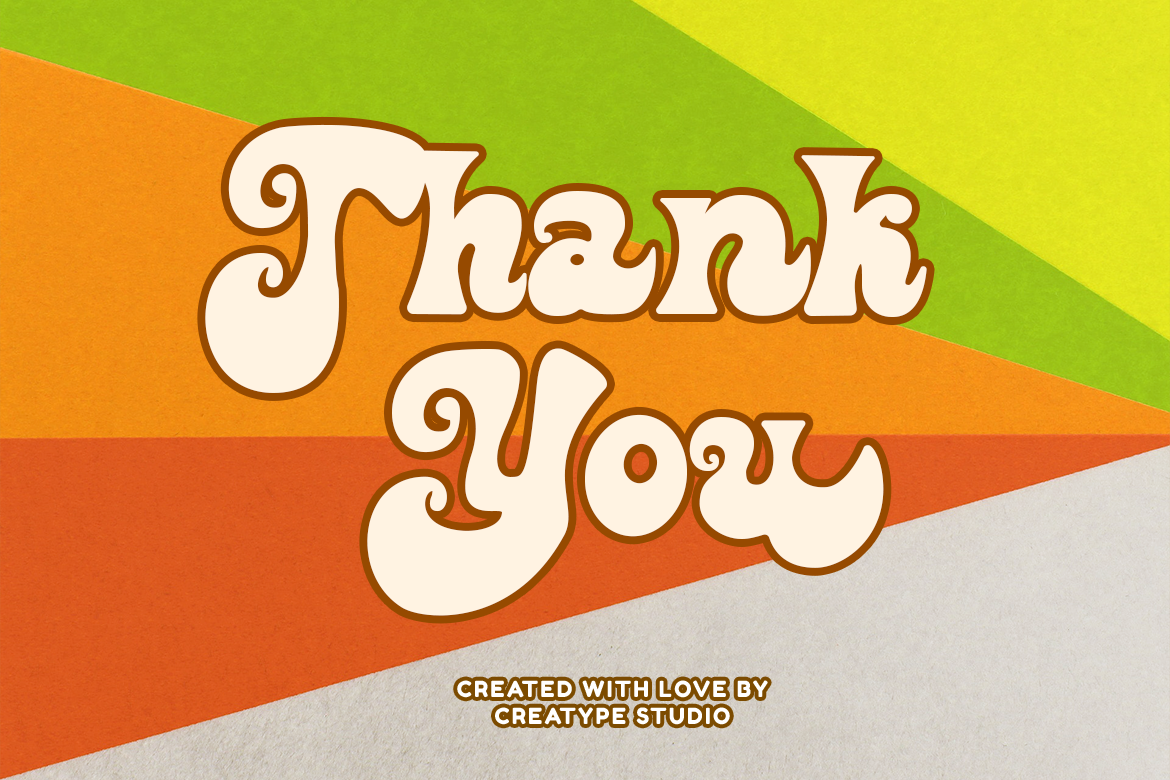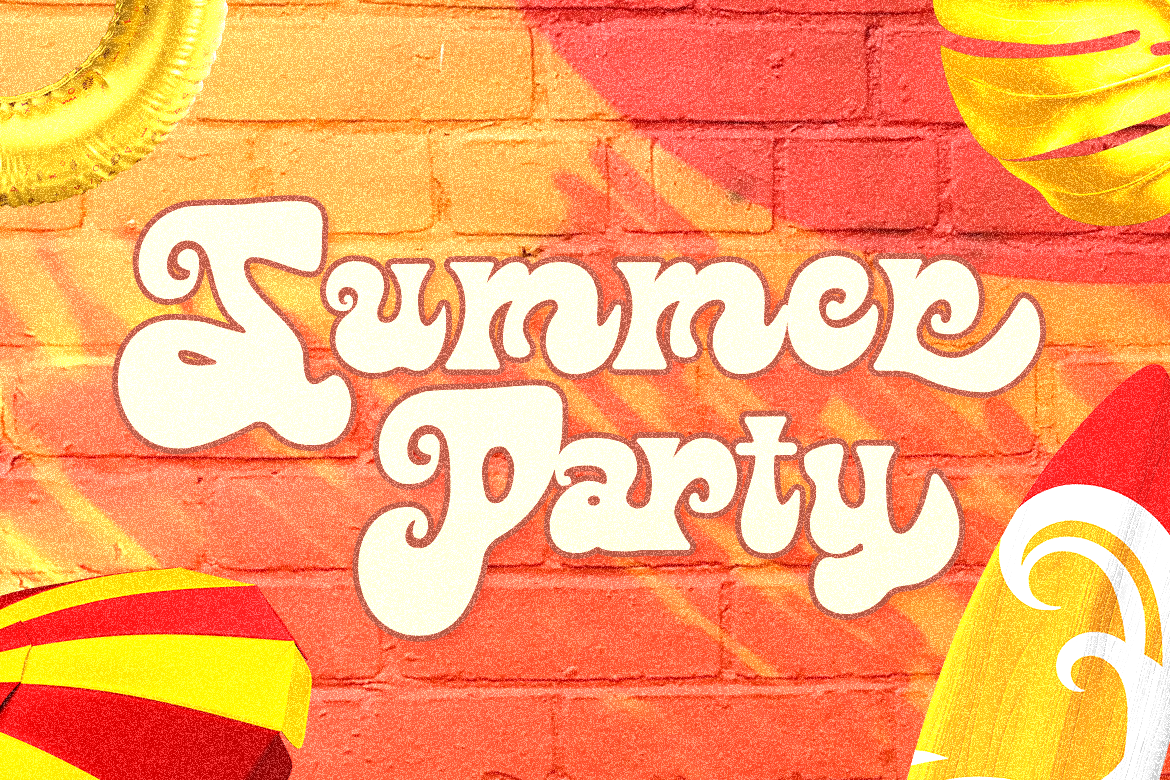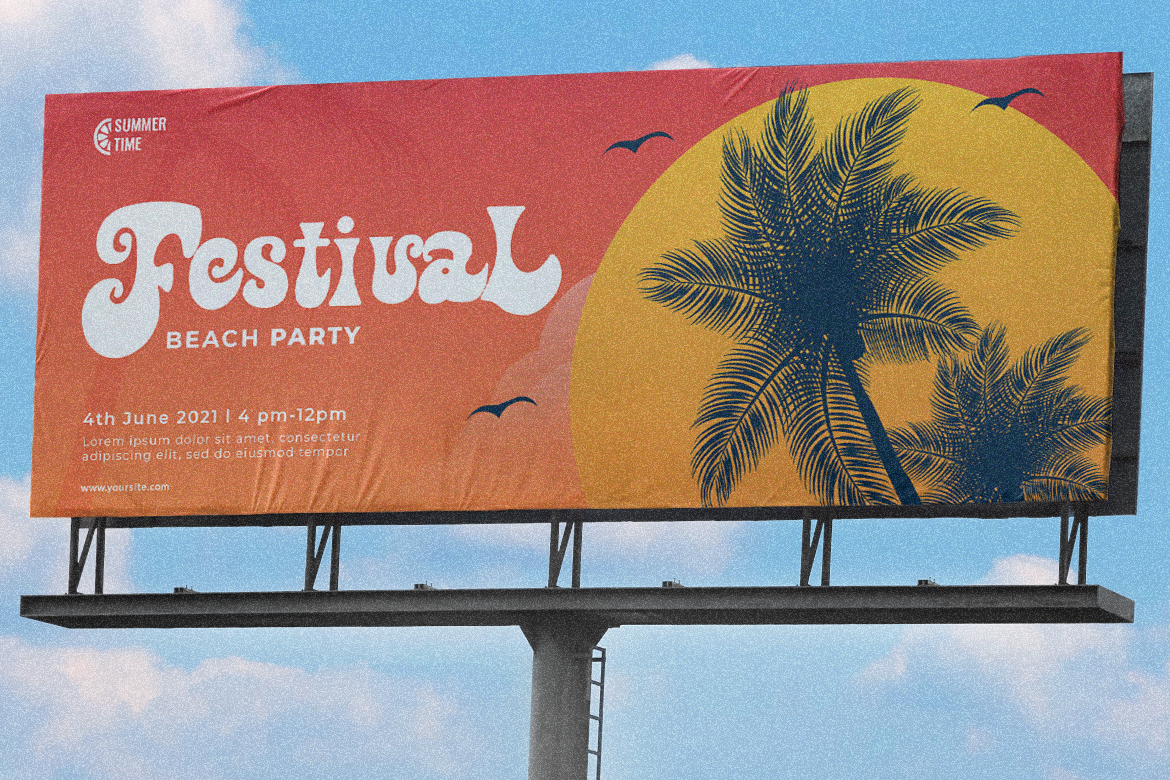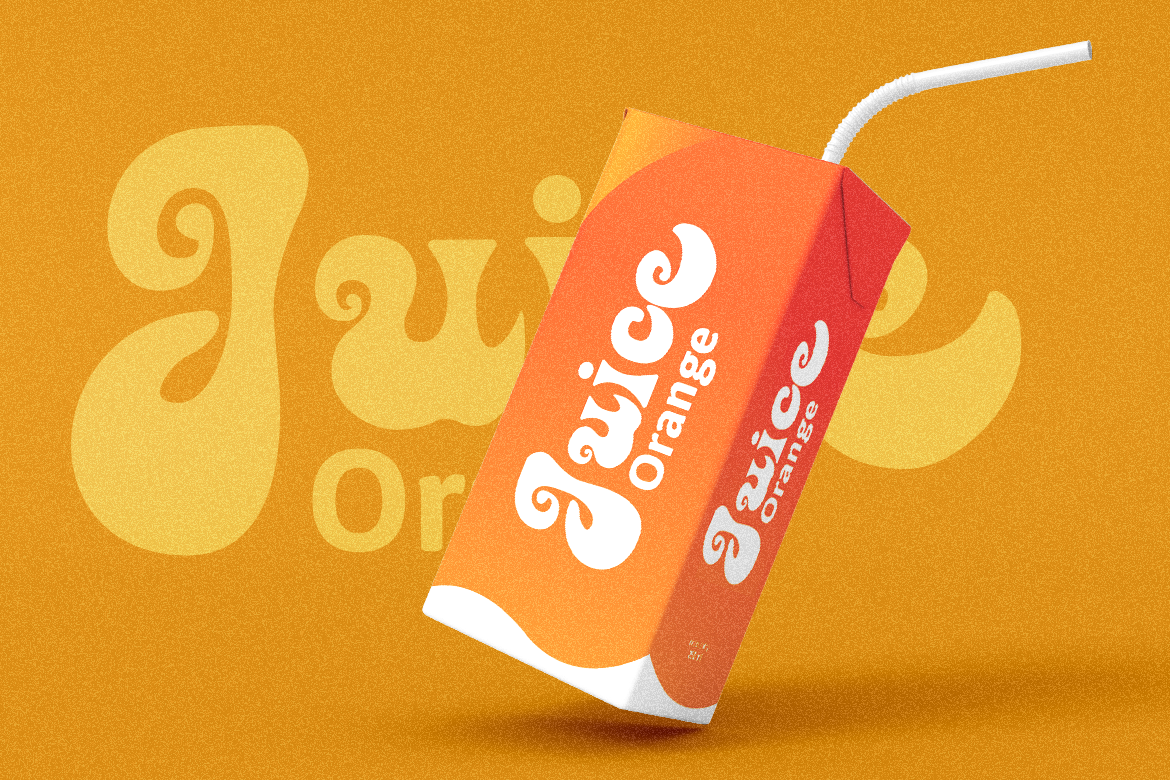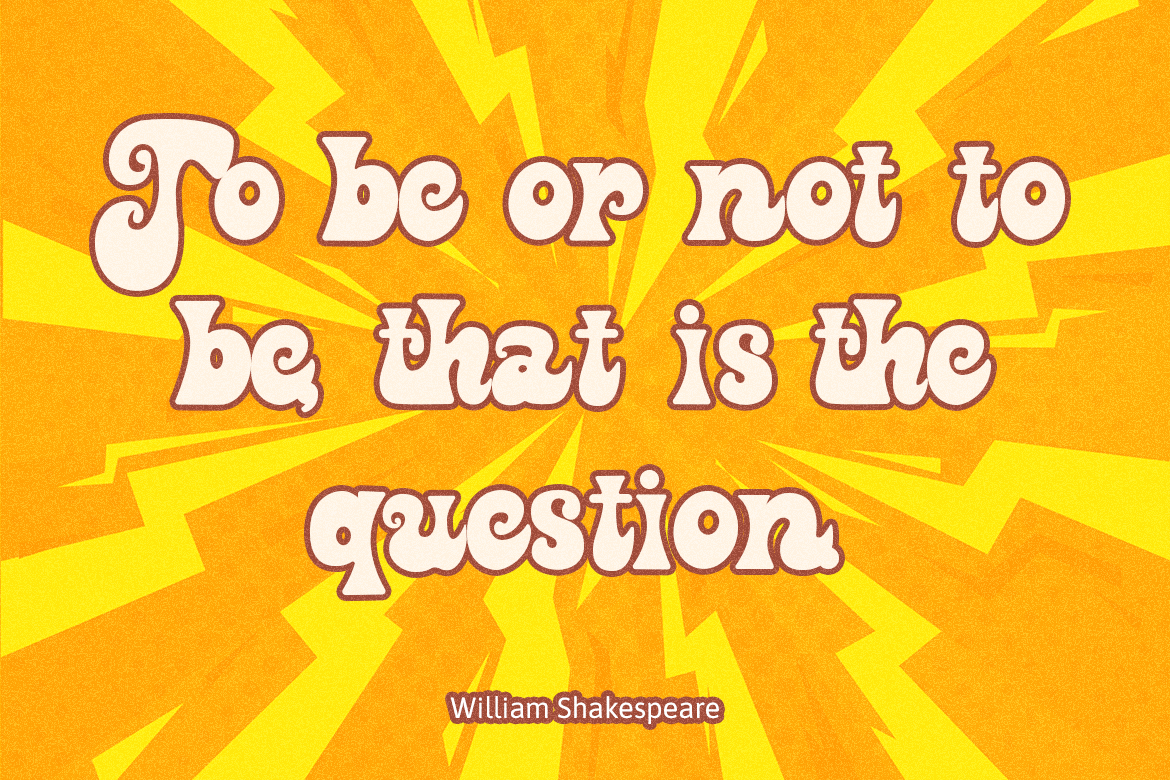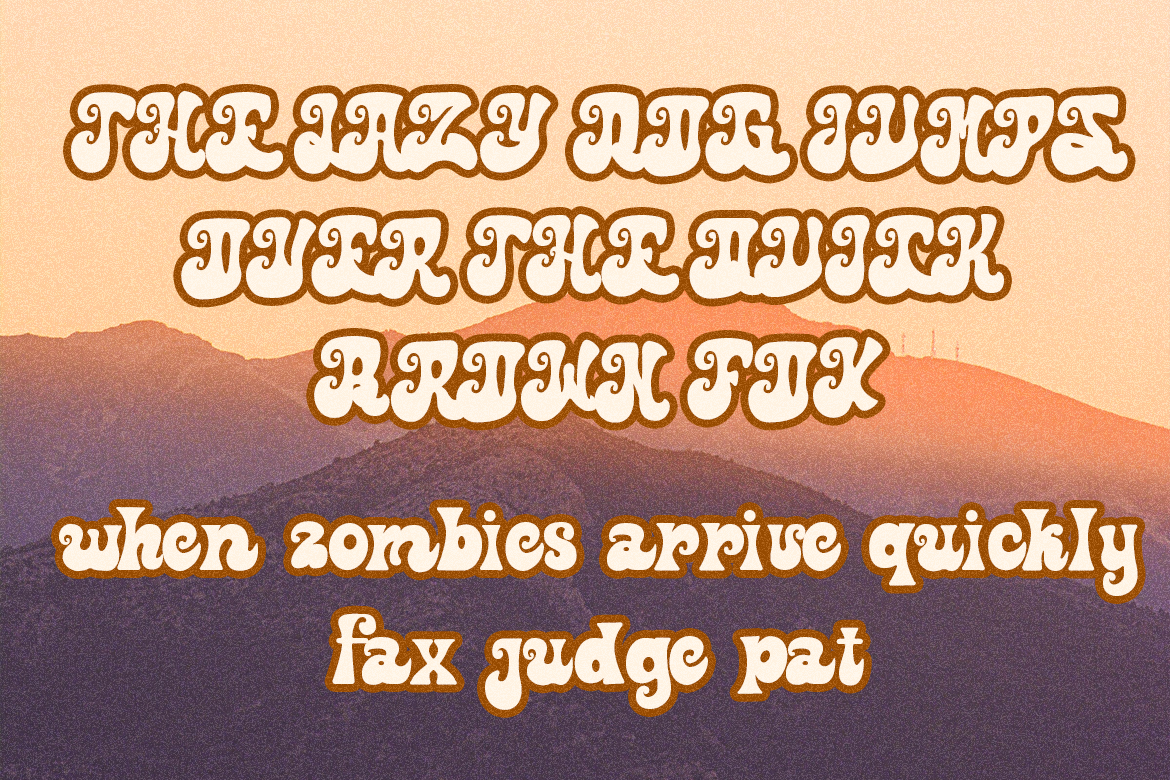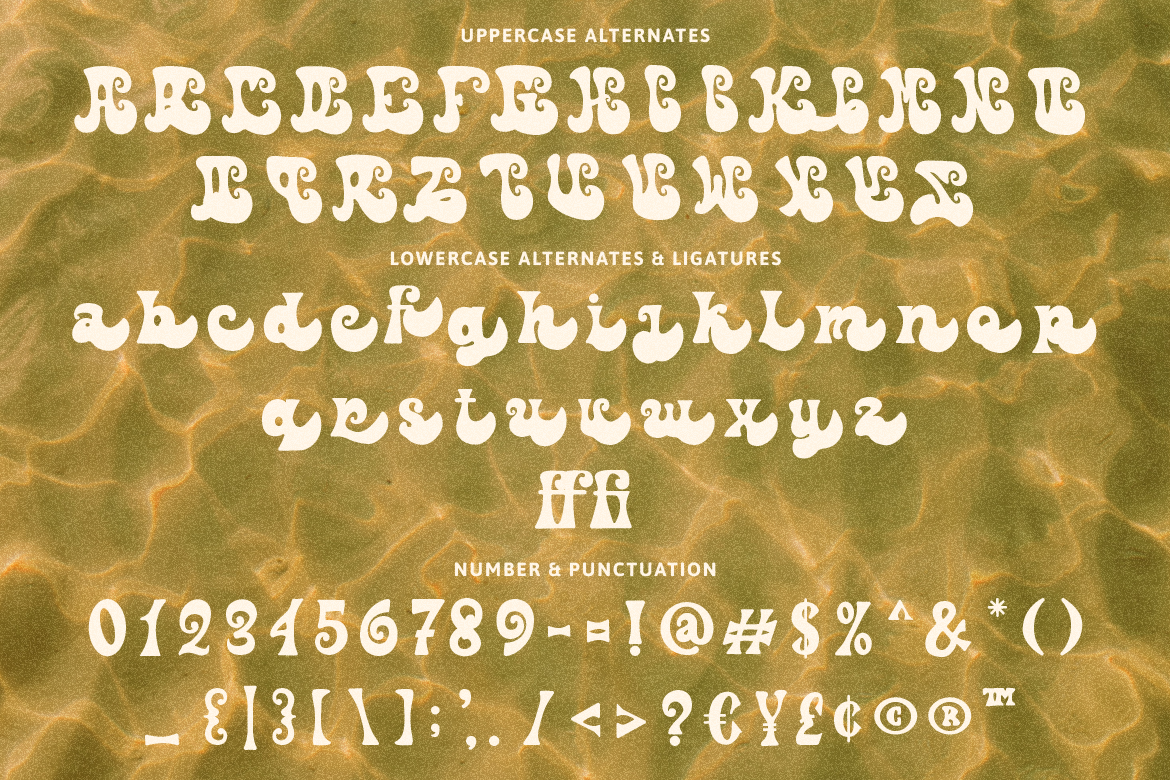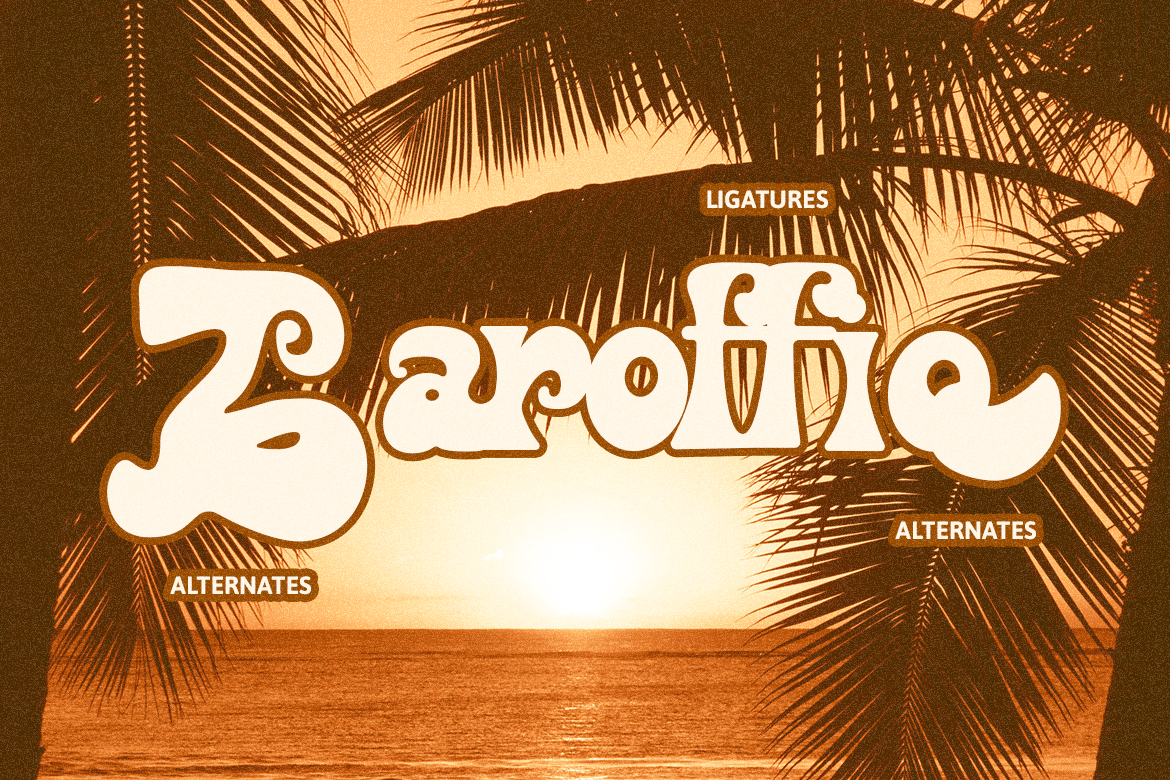
Nawacitha is a bold, fun, and vintage typeface never gets old. With the touch of 80’s looks, it could bring out the fun side of your projects. Time to catch your audience’s attention!
Nawacitha is perfect for branding projects, logo, wedding designs, social media posts, advertisements, product packaging, product designs, label, photography, watermark, invitation, stationery and any projects that need handwriting taste.
Nawacitha Display Curly Font